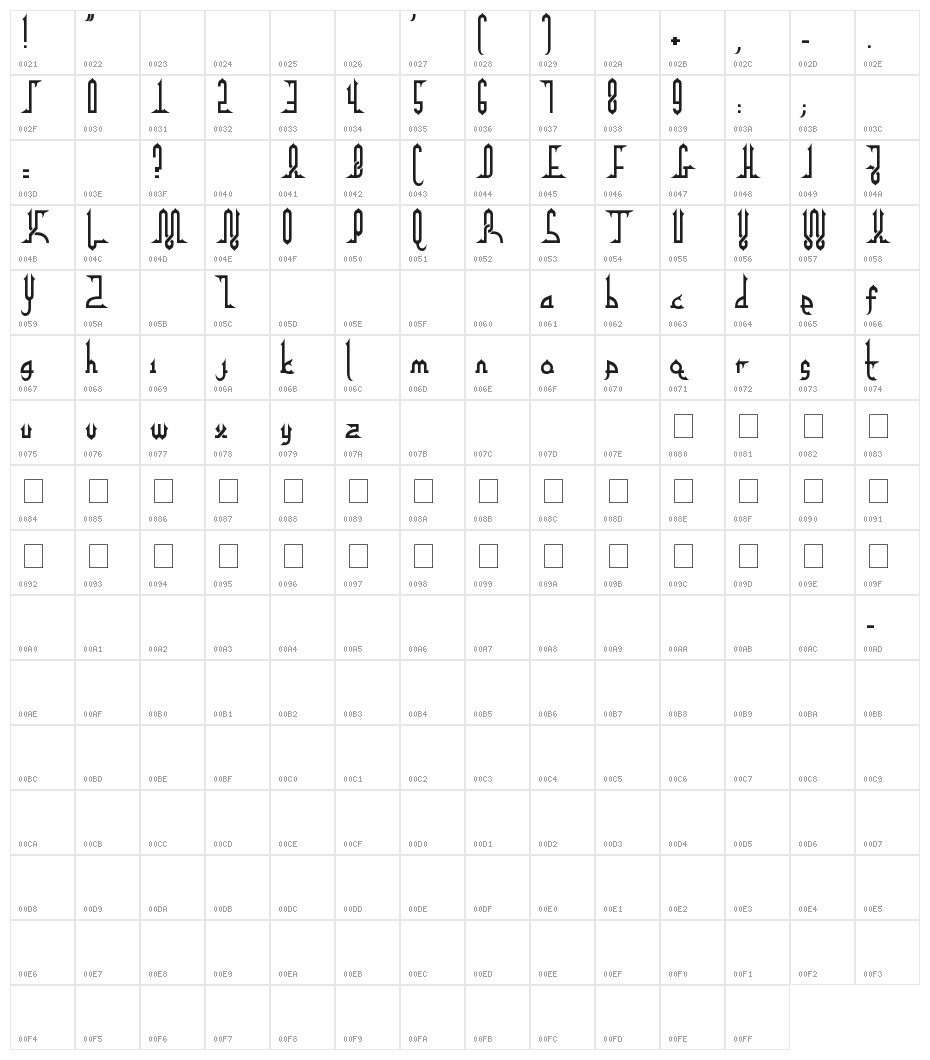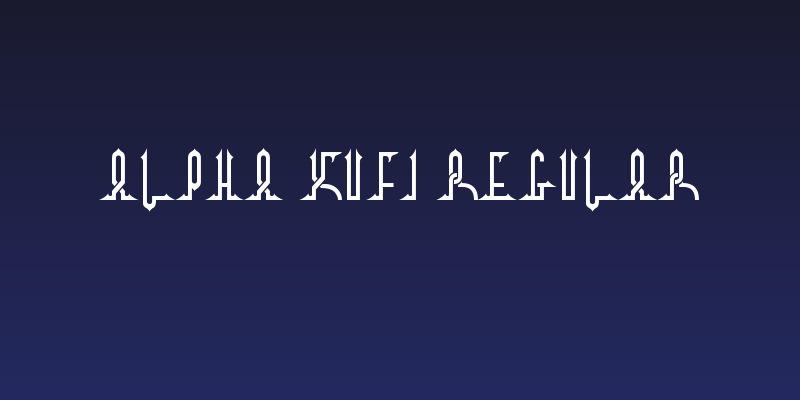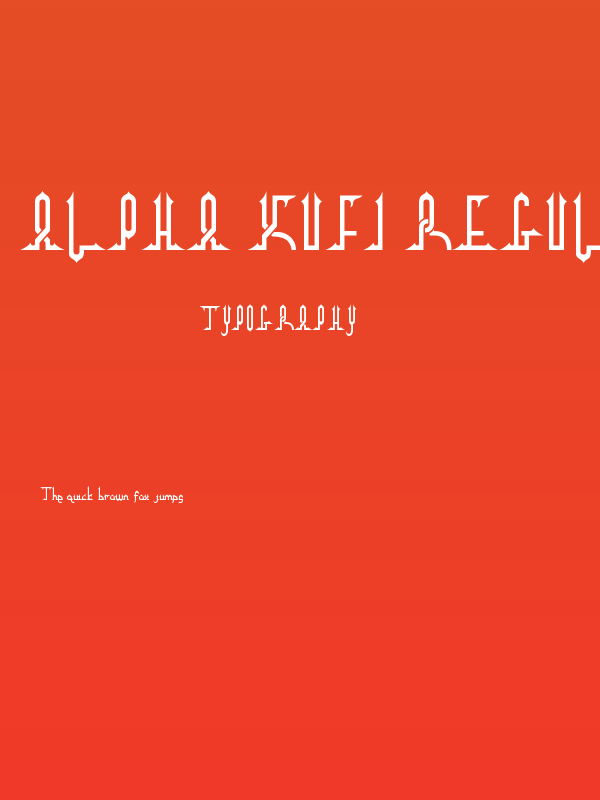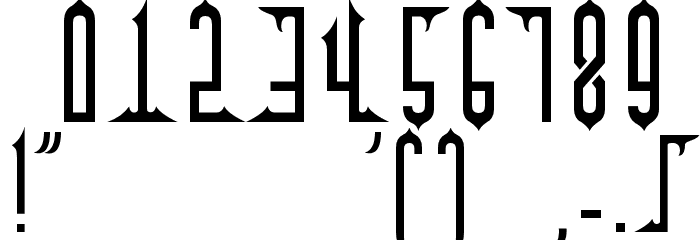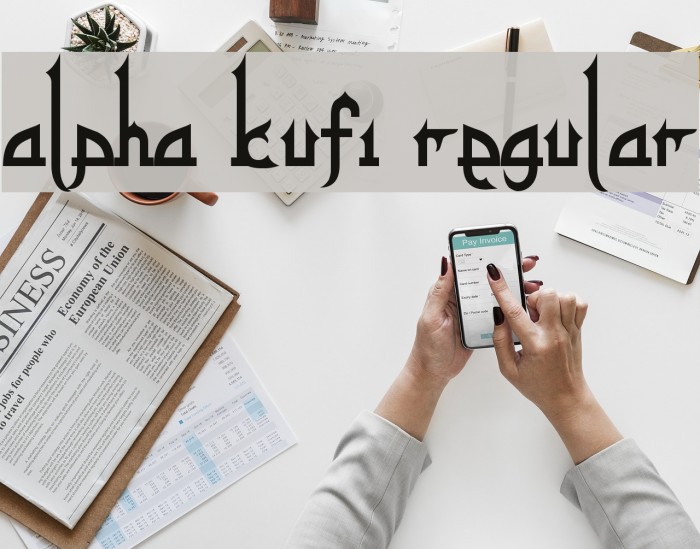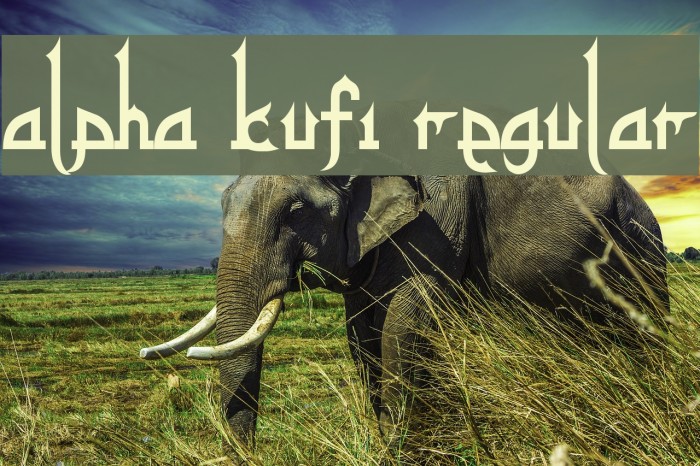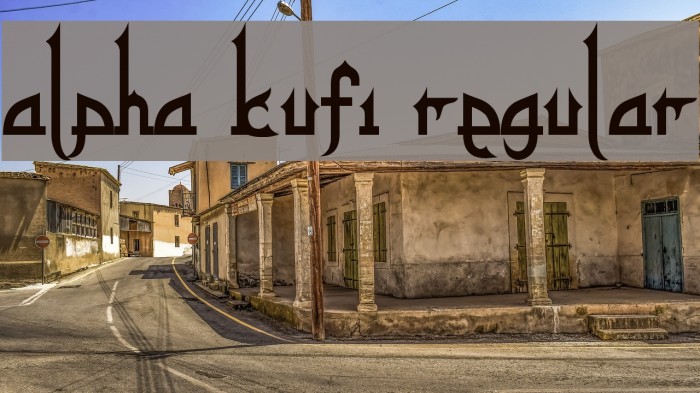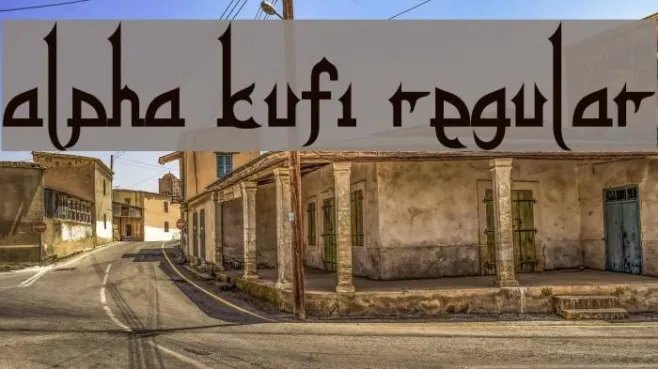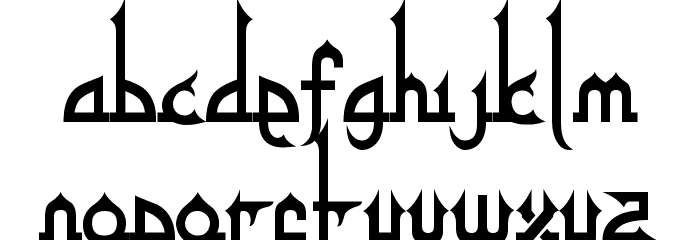
alpha kufi regular Font
alpha kufi regular Description
This font features a unique blend of geometric and calligraphic elements, drawing inspiration from traditional Kufi script. The characters are bold and angular, with sharp edges and a distinct architectural feel. The uppercase letters are particularly striking, with intricate details that give them a sense of depth and dimension. The lowercase letters maintain a consistent style, offering a harmonious balance between form and function. Numbers and special characters are designed with the same attention to detail, ensuring a cohesive look across all text elements. This font is ideal for projects that require a strong visual impact and a touch of cultural heritage.
ALPHA-KUFI-REGULAR UPPERCASE
ALPHA-KUFI-REGULAR LOWERCASE
ALPHA-KUFI-REGULAR OTHER CHARS